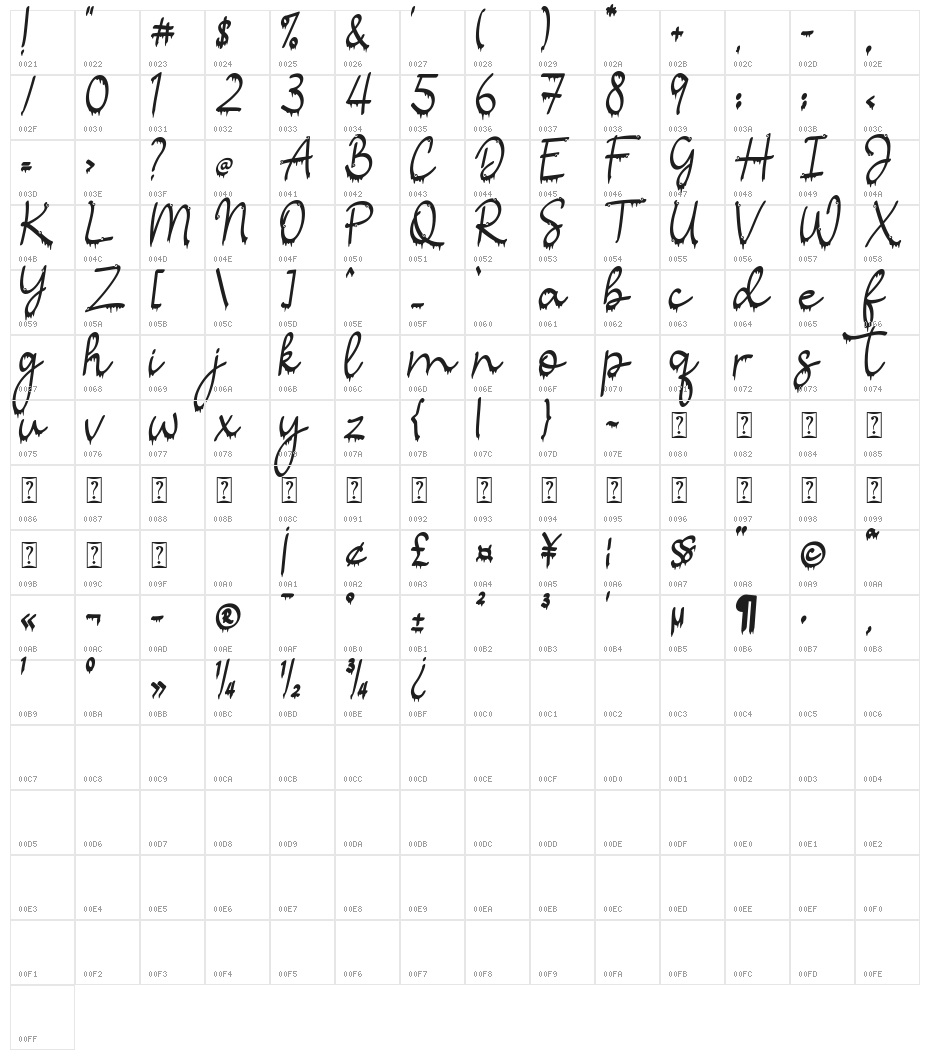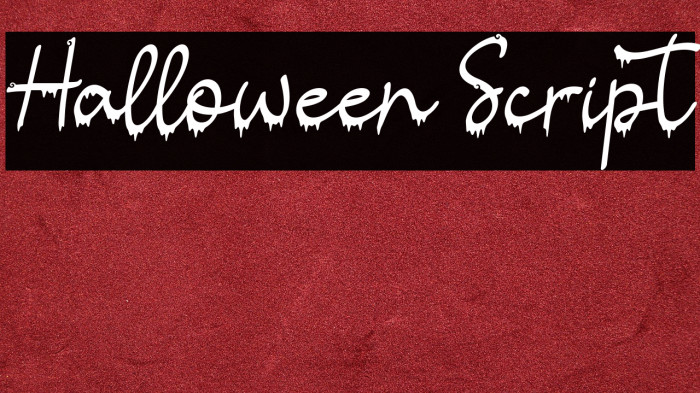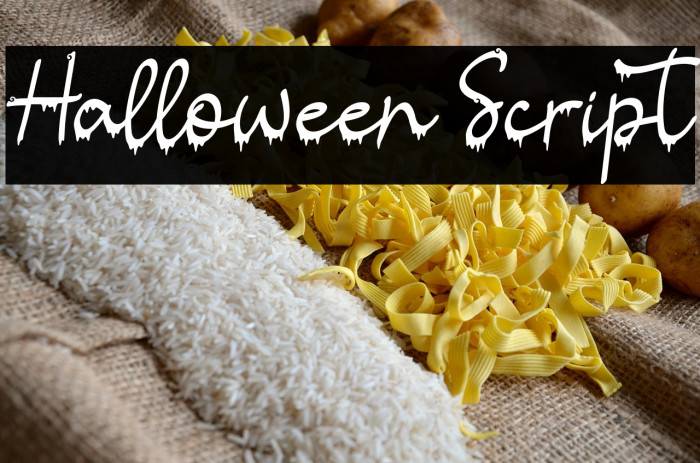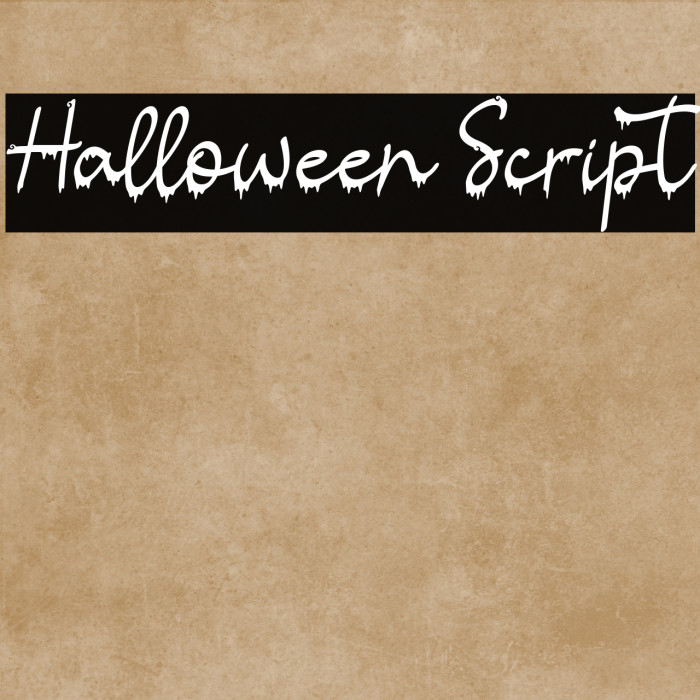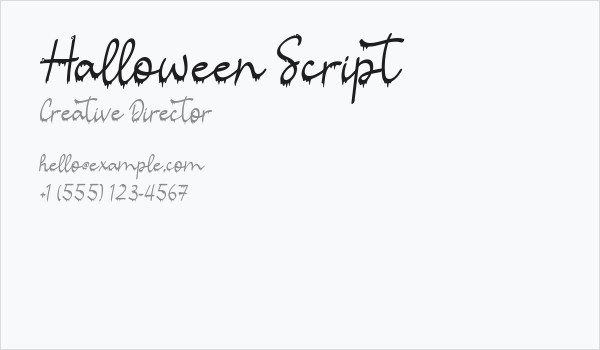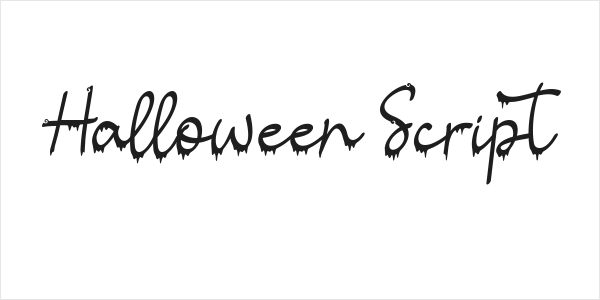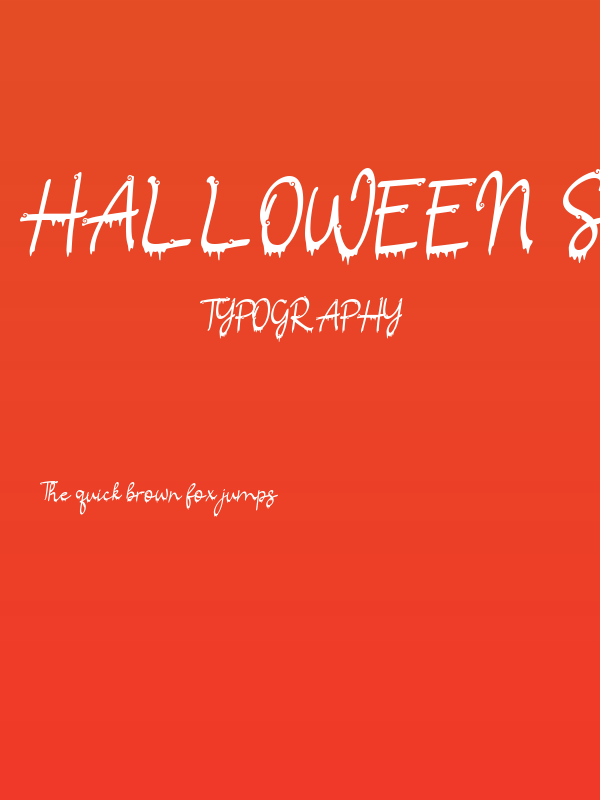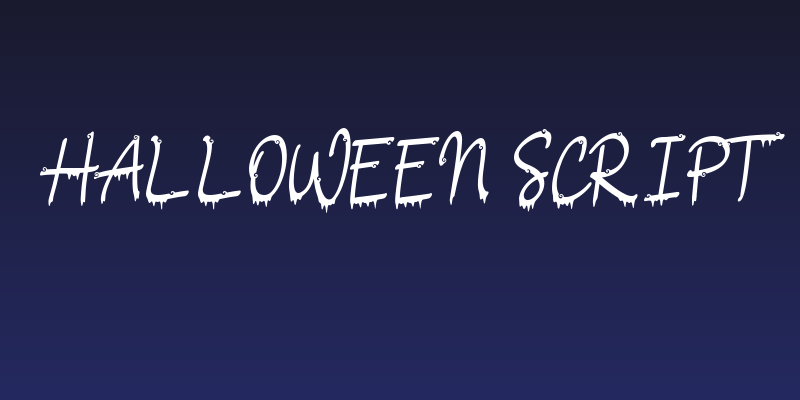
Halloween Script Font
Halloween Script Description
This font exudes a spooky and playful vibe, perfect for Halloween-themed projects. The letters have a dripping effect, reminiscent of melting wax or goo, which adds to the eerie aesthetic. The uppercase and lowercase letters maintain a consistent style, with elongated strokes and pointed ends that enhance the creepy feel. The numerals and special characters are designed to match the overall theme, ensuring a cohesive look across all text elements. The font's unique style makes it ideal for creating eye-catching headlines and decorative text.
| Use Case | Headlines, Decorative text |
| Proposed Projects | Perfect for Halloween invitations, party flyers, themed posters, and spooky event branding. |